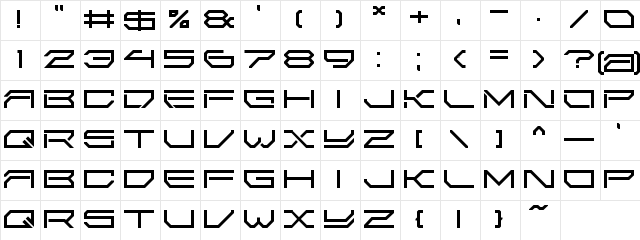
2589 LDR Regular Free Font
2589 LDR Regular
Designer: Micha? ￿eoqueto￿Nowak
Design Context for 2589 LDR
2589 LDR is a composed and adaptable typeface that performs quietly and consistently across a wide range of design contexts.